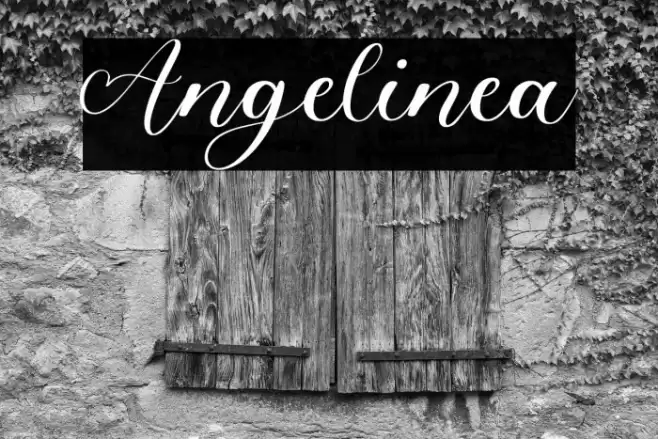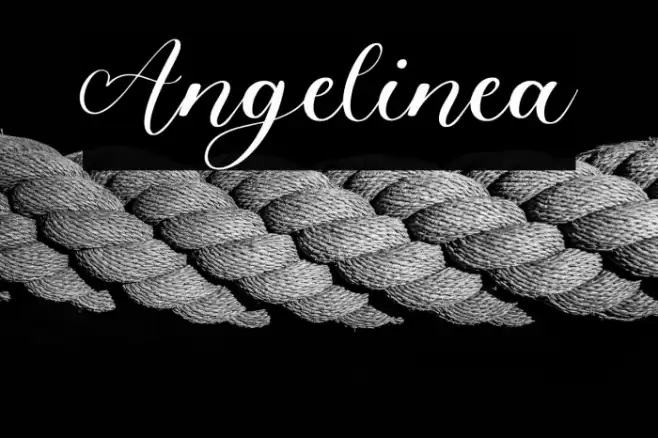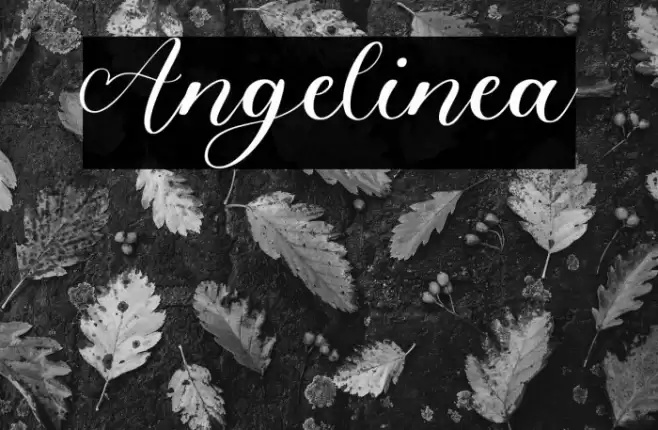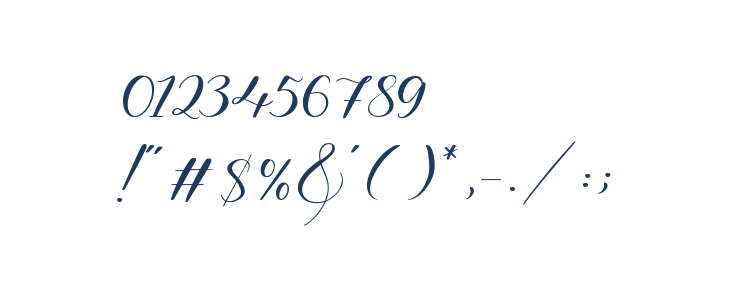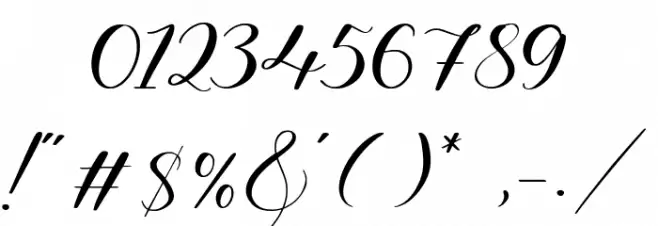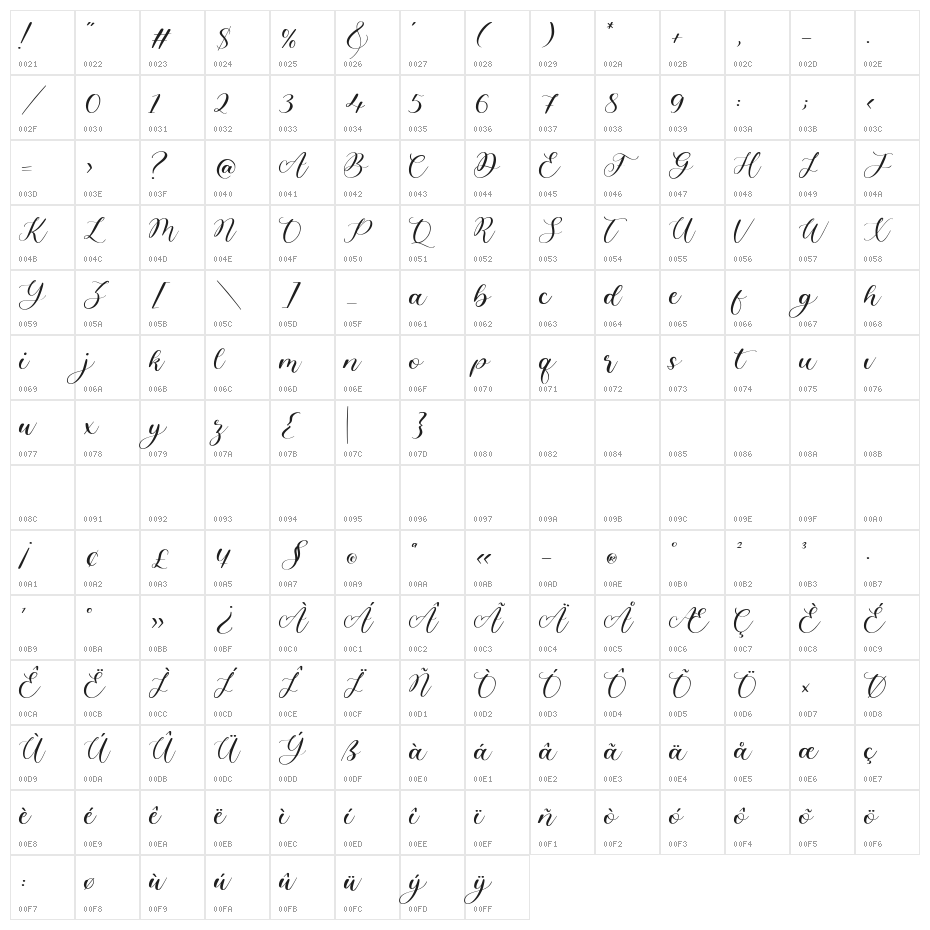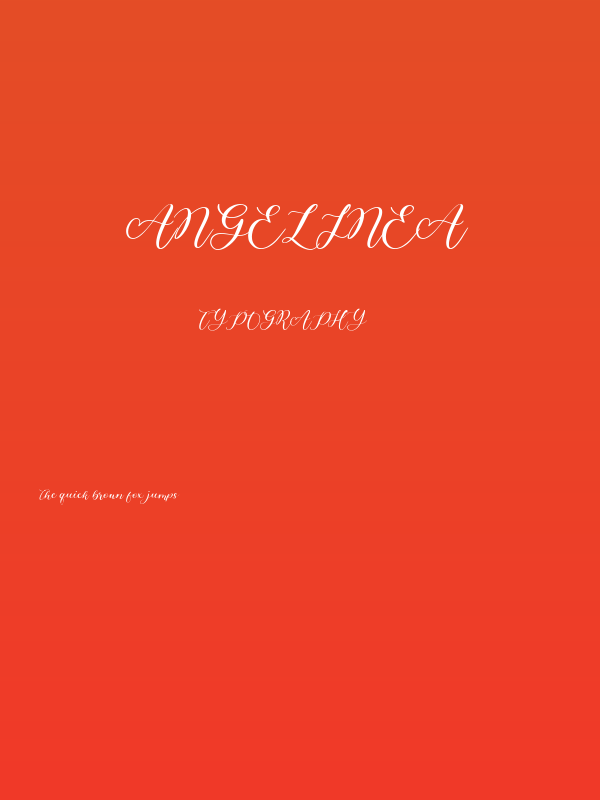
Angelinea Font
Angelinea Description
This elegant script font features flowing, cursive letterforms that exude a sense of sophistication and grace. The uppercase letters are characterized by sweeping loops and flourishes, while the lowercase letters maintain a consistent, fluid motion. The numerals are styled to match the overall aesthetic, with a slight slant and delicate curves. Special characters are thoughtfully designed to complement the script style, ensuring a cohesive look across all text elements. The font's thin strokes and high contrast between thick and thin lines add to its refined appearance, making it ideal for formal invitations, branding, and other upscale design projects.
A sophisticated script font with elegant, flowing cursive letterforms from Regular fonts.
- Proposed Projects: Ideal for wedding invitations, luxury branding, elegant stationery, and high-end product packaging.
- Overall Style: Elegant, Sophisticated
- Use Case: Invitations, Branding, Stationery